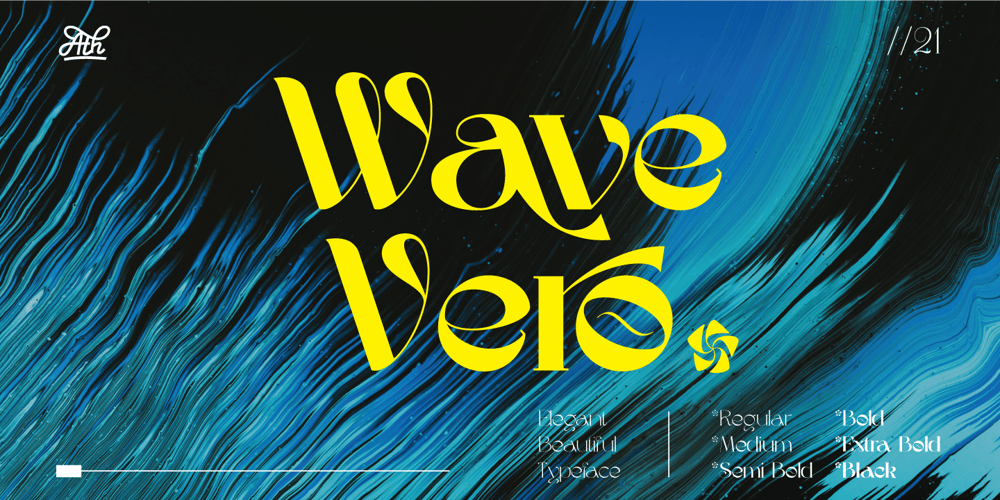
Wave Vero Font Family was designed by Ekayasa and published by Authentype. Wave Vero contains 6 styles and family package options. Wave Vero Classic & Elegant Font created by Authen Type. This font features a classic and elegant style.Classic and elegant style designs are very beautiful to use in branding designs for beauty and feminine products. It might also be interesting that Wave Vero is placed for designs, brochures, logos, and invitations with a neat and varied font concept.Features Standard glyphs uppercase and lowercase letters Numerals, a large range of punctuation and ligatures. Lowercase letters include ending swashes. Works on PC & Mac. Simple installations, accessible in Adobe Illustrator, Adobe Photoshop, Adobe InDesign, even work on Microsoft Word. PUA Encoded Characters – Fully accessible without additional design software. Fonts include multilingual support for; ä ö ü Ä Ö Ü ß ¿ ¡ _____ Image used: All photographs/pictures/logo/vectors used in the preview are not included, they are intended for illustration purposes only.